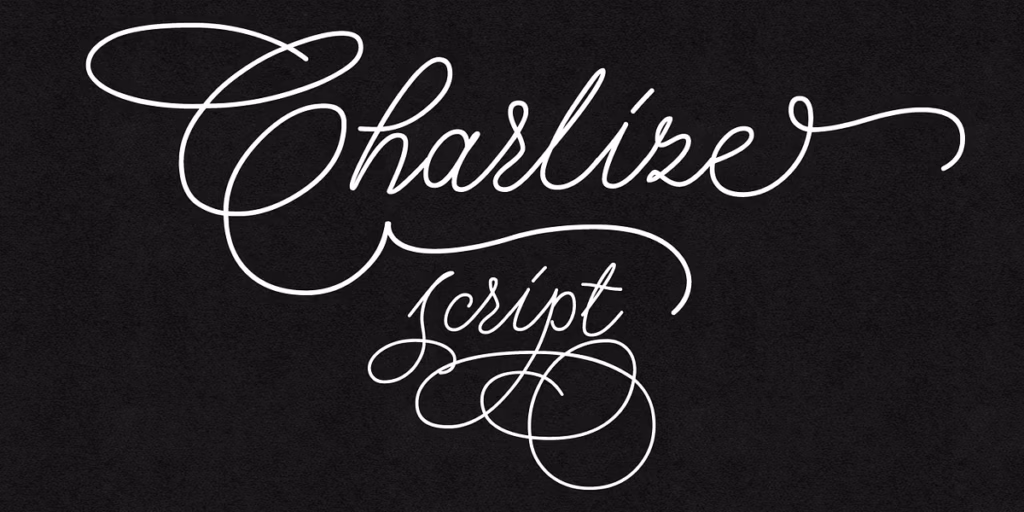
Charlize – Elegant Handwritten Script with Flow & Readability
Charlize is a beautifully connected handwritten script designed for readability and flow, perfect for formal invitations and event graphics. With over 740 glyphs, including ligatures, this font adapts seamlessly to any occasion.
Perfect For:
Invitations & Greeting Cards: Ideal for weddings and special events.
Advertising & Posters: A stylish option for any promotional design.
Books & Menus: Adds a touch of elegance to printed materials.